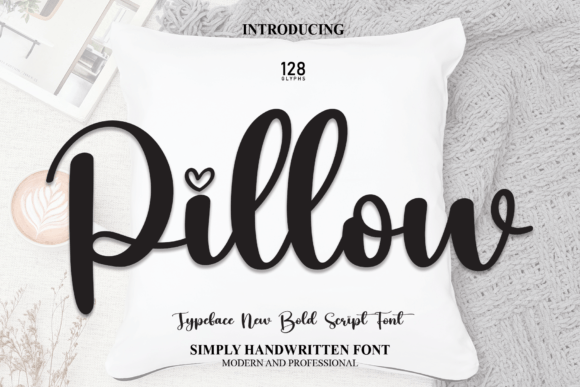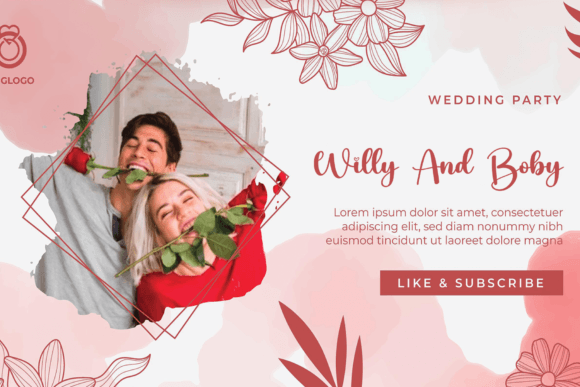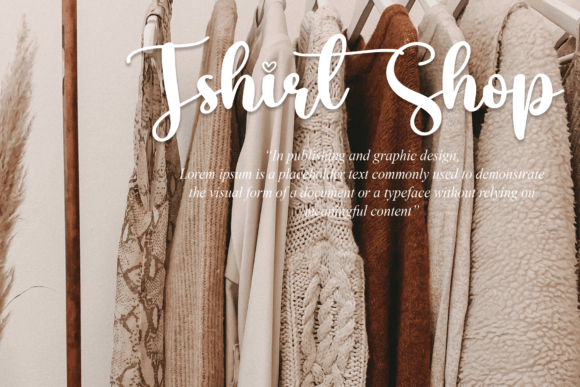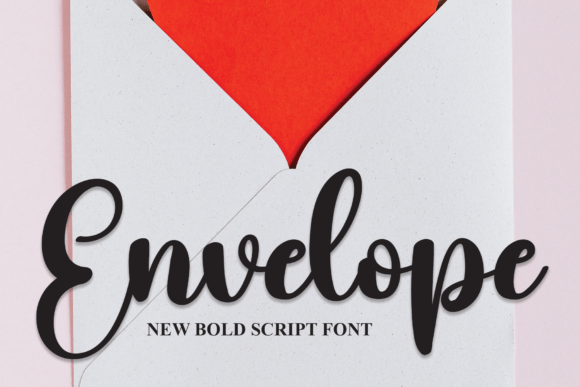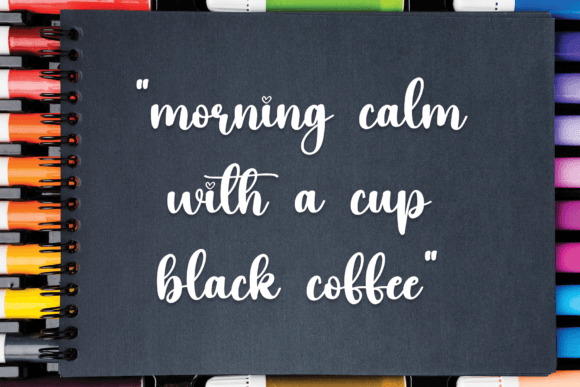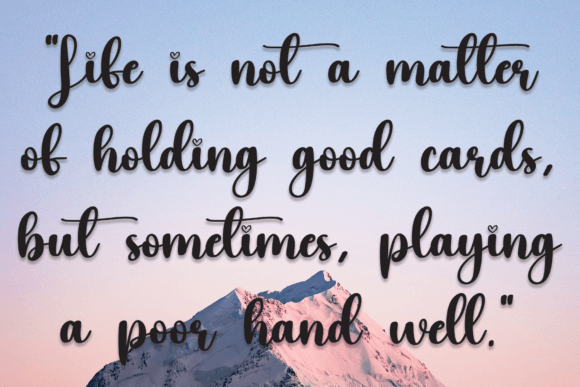
About Pillow Font
The most recent iteration of this font boasts a collection of letters that epitomize perfection, rendering them exceptionally well-suited for an extensive array of applications. From grandiose wall displays to the delicate intricacies of wedding invitations, from the compact simplicity of social media post logos to the expansive canvas of advertisements, this font’s latest style seamlessly integrates itself into the visual tapestry of diverse projects.
In the realm of product packaging and design, these letters serve as a visual catalyst, infusing a unique and personalized touch to labels and packaging. Their versatility is further evident in photography, where they seamlessly integrate into watermarks, adding a distinctive flair to images. The font’s adaptability extends to invitations and stationery, bringing a handwritten charm that transforms the ordinary into the extraordinary.
For advertisers, the font becomes a powerful tool, capturing attention and leaving a lasting impression. Its contemporary design aligns seamlessly with modern aesthetics, making it an invaluable asset for any advertising campaign. The font’s ability to strike a balance between elegance and modernity ensures its relevance across various mediums and industries.
In the realm of creativity, this font’s latest style serves as a catalyst for inspiration. Its letters, carefully crafted to embody both contemporary aesthetics and timeless elegance, provide a canvas for designers to express themselves. Whether one is conceptualizing a social media post or refining the details of product packaging, these letters elevate the project with a touch of sophistication.
Imagine a chic wedding invitation adorned with these letters, each stroke contributing to an atmosphere of romance and individuality. Picture a social media post logo that not only captures attention but also communicates the brand’s essence with style. Envision advertisements that stand out, leaving an indelible mark on the audience’s consciousness.
In essence, this font’s latest style transcends its functional role; it becomes an indispensable artistic element that breathes life into projects. Its handwritten taste is more than a stylistic choice; it’s a statement, a testament to the power of design in transforming the mundane into the extraordinary. So, whether embarking on a creative endeavor or delving into the realms of marketing and design, the latest style of this font is poised to be the catalyst that propels your project into realms of aesthetic brilliance.